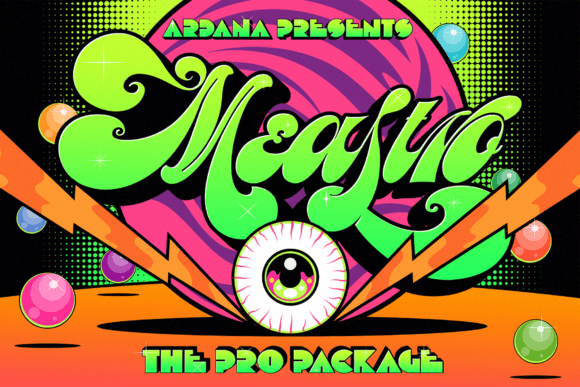
Dive into the world of comic artistry with Meastro Duo Font, the ultimate display font duo that captures the essence of retro charm and captivating storytelling. This font family is a visual symphony, expertly crafted by Ardana Creative, designed to bring your comic dialogues to life with unparalleled style and flair.
Meastro Duo Font is not just a font; it's an artistic gateway into a world of vibrant characters and captivating narratives. The display font oozes retro vibes, reminiscent of classic comic books and graphic novels, while the accompanying bold script dances across the page with an almost tangible energy. Together, they form a dynamic duo that commands attention and captivates readers from the very first panel.
With Meastro Duo Font, creating eye-catching designs becomes a joyful endeavor. Let your imagination soar as you immerse yourself in a world of colorful characters, epic battles, and heartfelt moments. This font duo is the perfect companion for comic book artists, graphic designers, and anyone seeking to add a touch of retro magic to their creative projects.
But Meastro Duo Font is more than just a pretty face. It's a font that understands the nuances of storytelling. The display font's bold and confident strokes convey strength and determination, while the script font's playful curves add a touch of whimsy and intrigue. Together, they create a visual narrative that draws readers into the heart of the story.
So, embark on a creative journey like no other with Meastro Duo Font. Let your imagination run wild as you craft captivating comic dialogues, design stunning posters and flyers, or create eye-catching social media graphics. The possibilities are endless with this dynamic font duo at your fingertips. Unleash your inner artist and turn your creative dreams into a reality with Meastro Duo Font.